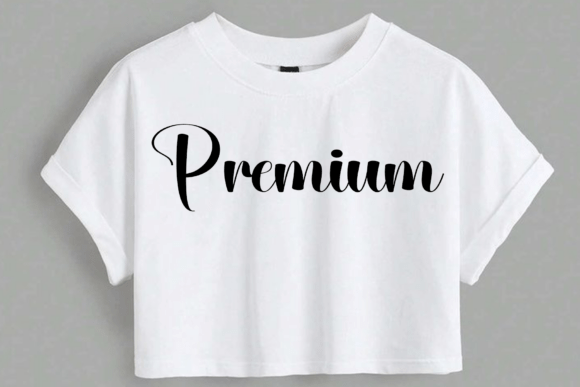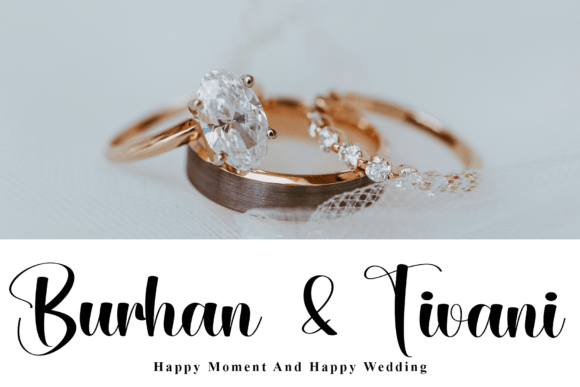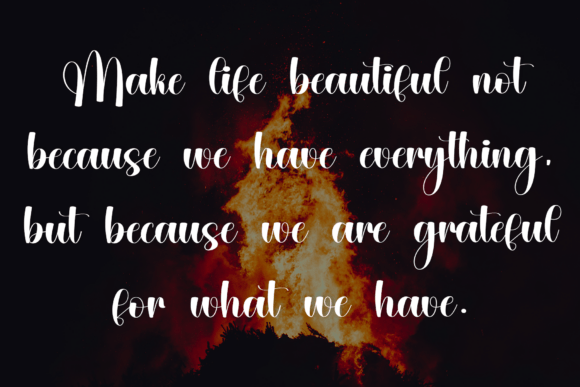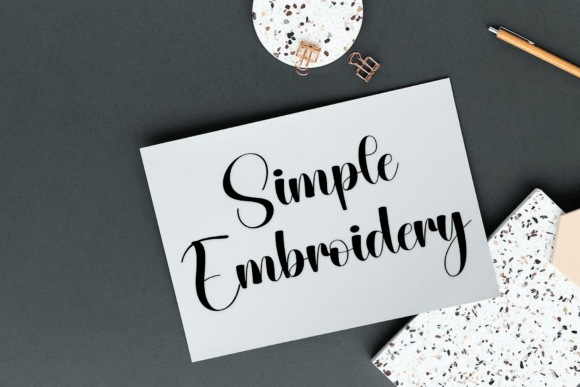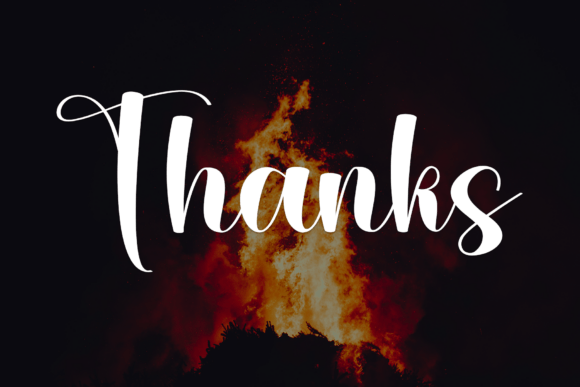
The Magic of Burning Font: Elevate Your Designs with Artistic Flair
I still remember the design project that led me to discover the Burning Font. I was working on a branding project for a boutique client, and I needed a font that would capture the essence of her artistic and modern vibe. After hours of scrolling through font libraries, I stumbled upon Burning Font, and it was love at first sight! ✨ The fluid brush strokes, dynamic curves, and expressive letterforms instantly resonated with my client’s aesthetic.
An Honest Review of Burning Font
• ✨ Artistic flair: Burning Font exudes a sense of hand-painted calligraphy with a modern twist, making it perfect for creative projects.
• ✅ Versatility: This font is ideal for various design applications, including logos, invitations, packaging, and social media graphics.
• 💫 Visual impact: The natural flow and vibrant character of Burning Font make it a great choice for designs that require a creative and sophisticated touch.
While Burning Font is an excellent choice for many design projects, there are a few things to keep in mind: ⚠️
• 🤔 Limited use in body text: Due to its script nature, Burning Font might not be the best choice for lengthy body text. It’s better suited for headings, titles, or short paragraphs.
• ⚠️ Kerning issues: As with many script fonts, you might need to adjust the kerning to ensure optimal spacing between letters.
The Designer Inspiration Behind Burning Font
The story behind Burning Font is one of passion and creativity. The designer, inspired by the world of art and calligraphy, aimed to create a font that would capture the essence of hand-painted elegance with a modern twist. With Burning Font, they sought to empower designers to add a touch of sophistication and artistic flair to their work.
Q: What type of projects is Burning Font best suited for?
A: Burning Font is ideal for logos, invitations, packaging, and social media graphics that require a creative and sophisticated touch.
Q: Can I use Burning Font for body text?
A: While Burning Font can be used for short paragraphs, it’s not recommended for lengthy body text due to its script nature.
Q: Does Burning Font support OpenType features?
A: Yes, Burning Font supports OpenType features, such as glyphs and stylistic alternates, which can be accessed in compatible design software.